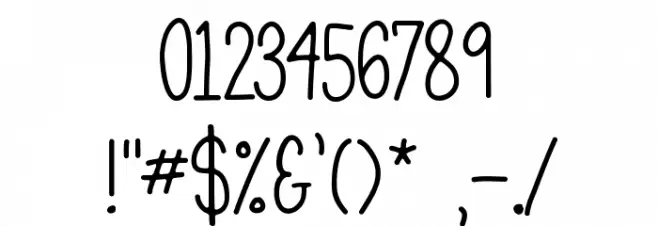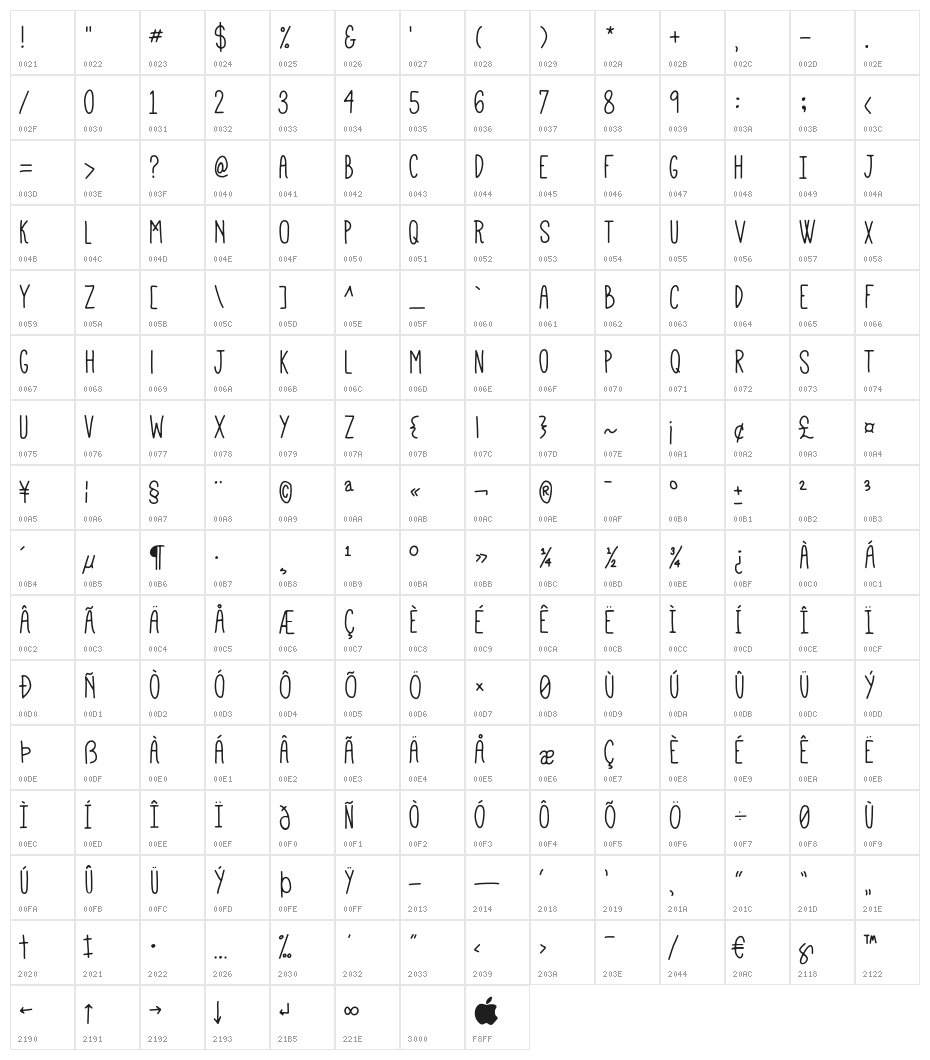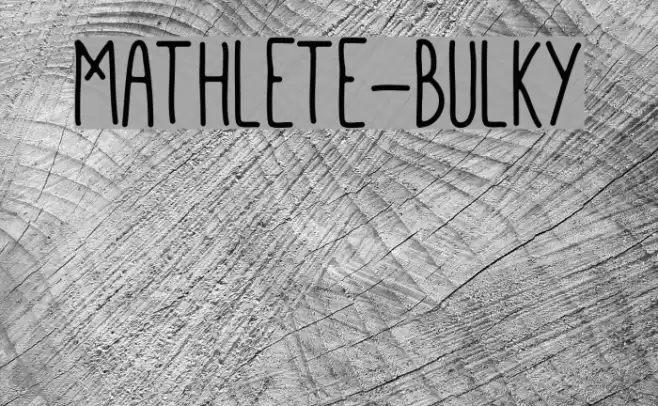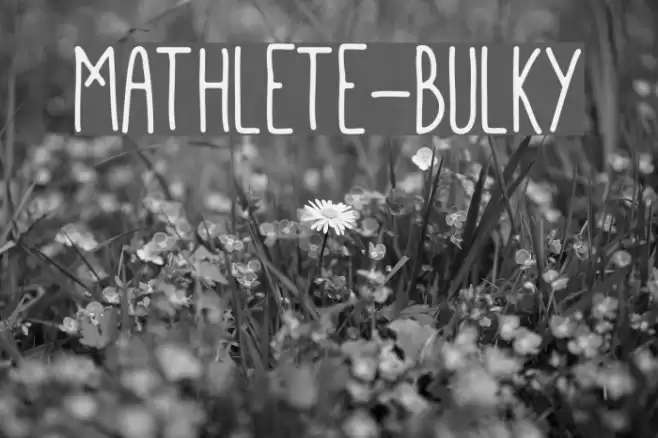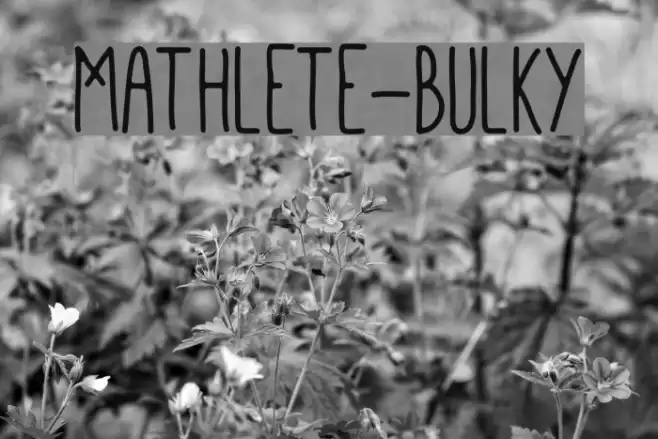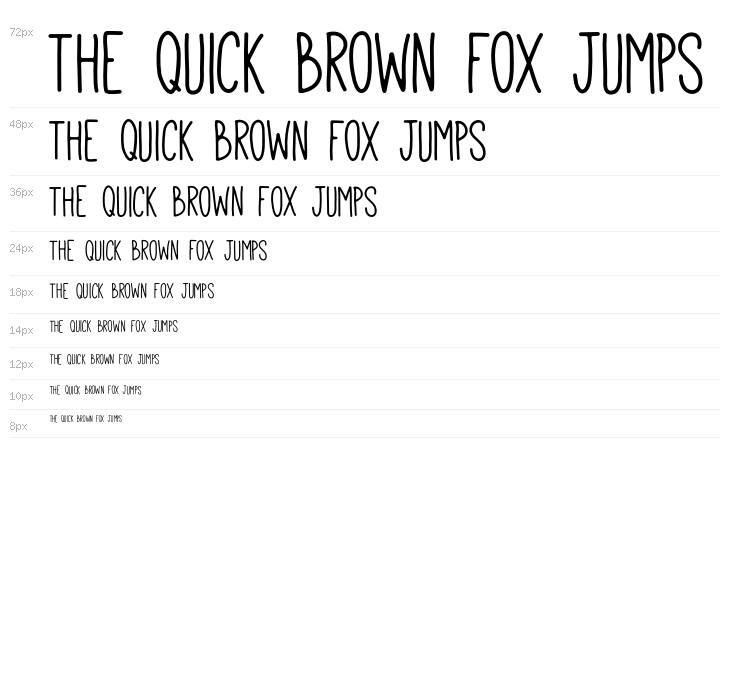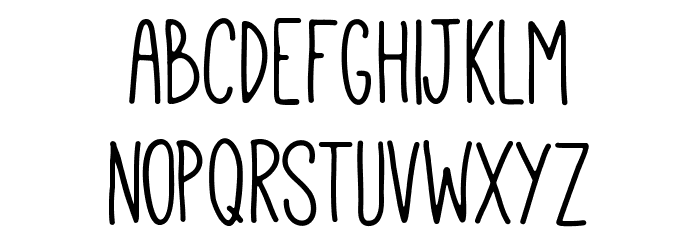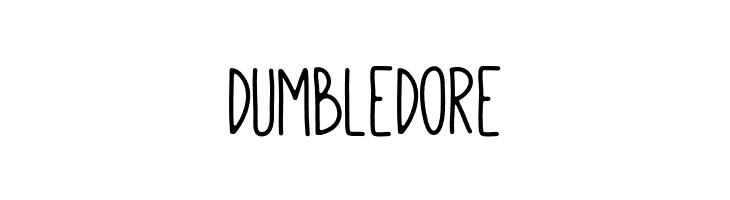
Mathlete-Bulky Font
Mathlete-Bulky Description
This font features a playful and rounded style with a hand-drawn appearance. The characters are tall and slightly narrow, giving a sense of height and elegance while maintaining a casual feel. The strokes are consistent in width, providing a uniform look across all characters. The uppercase and lowercase letters are well-balanced, and the numerals are clear and easy to read. Special characters are designed to match the overall aesthetic, making this font versatile for various uses.